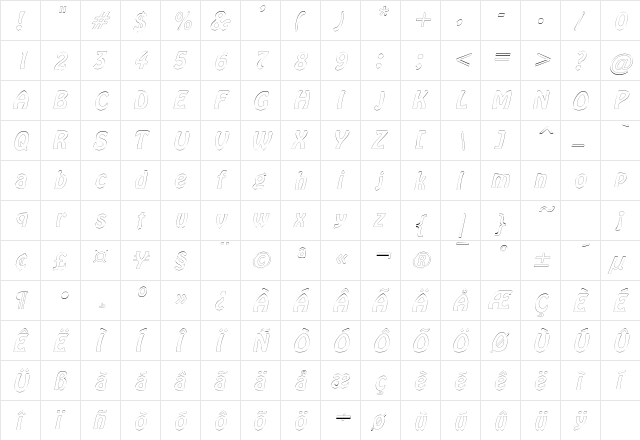
GuthrieOutline Oblique
Design Context for GuthrieOutline Typeface
GuthrieOutline brings ornamental detail and strong personality to headlines and identities, where visual impact matters more than quiet functionality. The slanted form adds forward momentum and visual energy.
Font Pairing: Pair with a clean neutral sans-serif for body copy to let GuthrieOutline's character lead without overwhelming the composition.
Pro Tip: Treat GuthrieOutline as the centrepiece of your typographic hierarchy. One strong heading set in a decorative face can carry an entire layout.